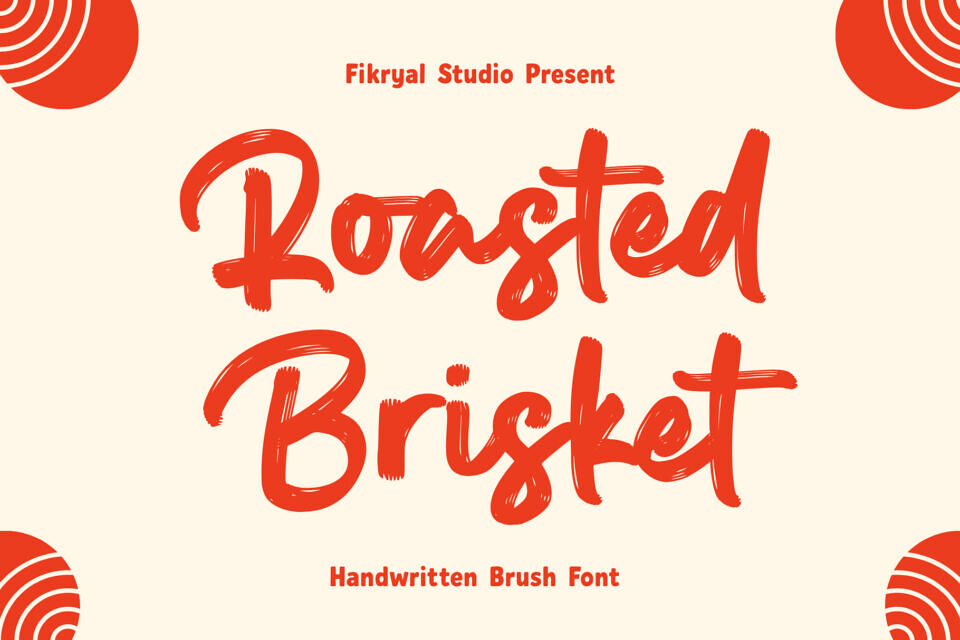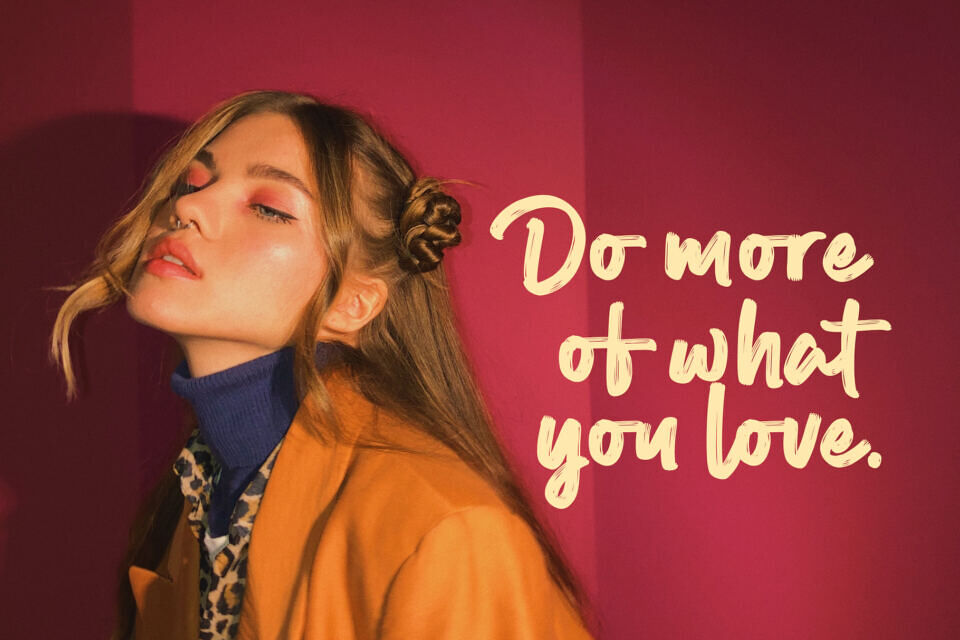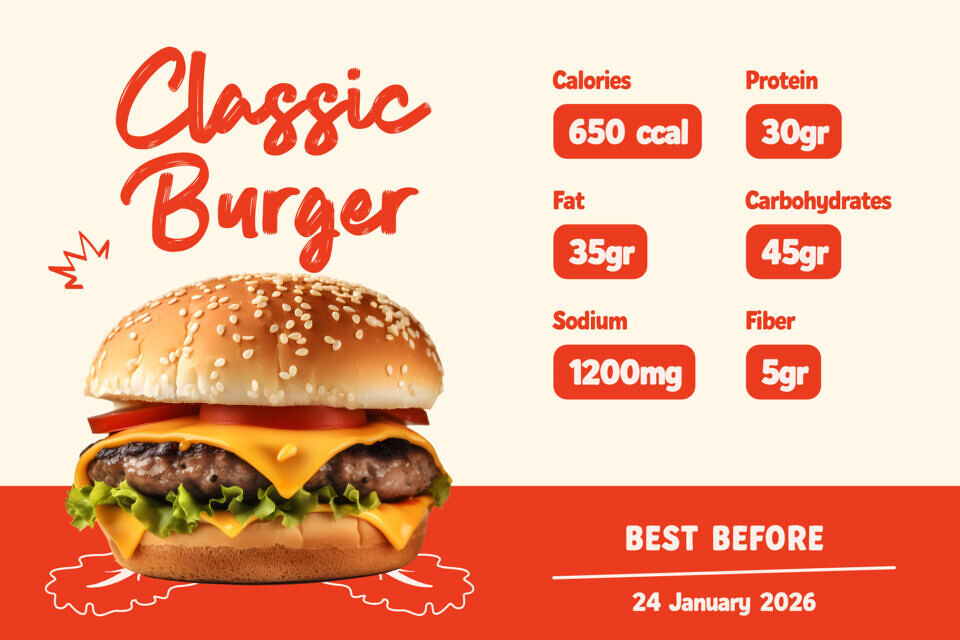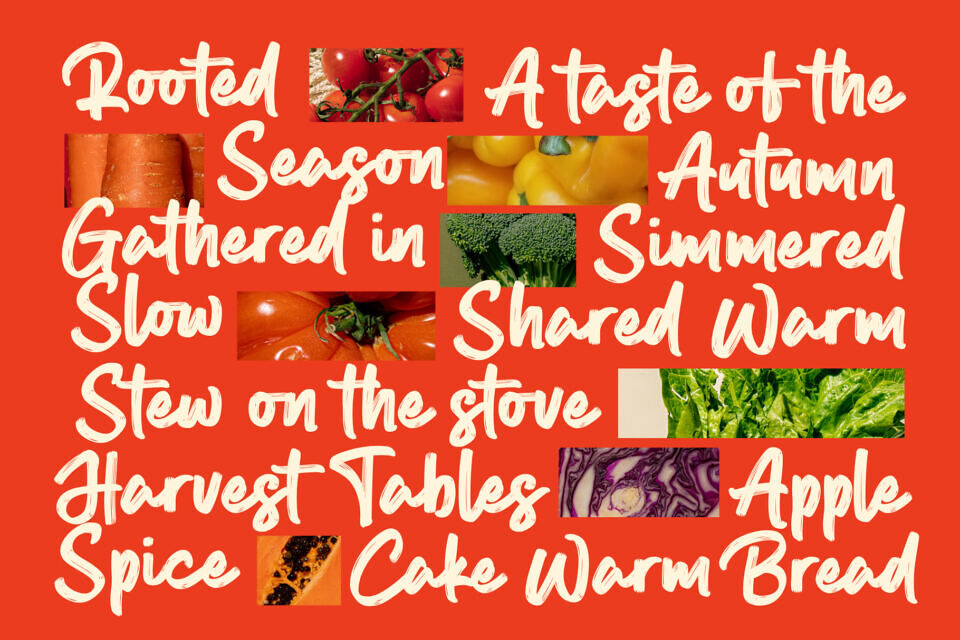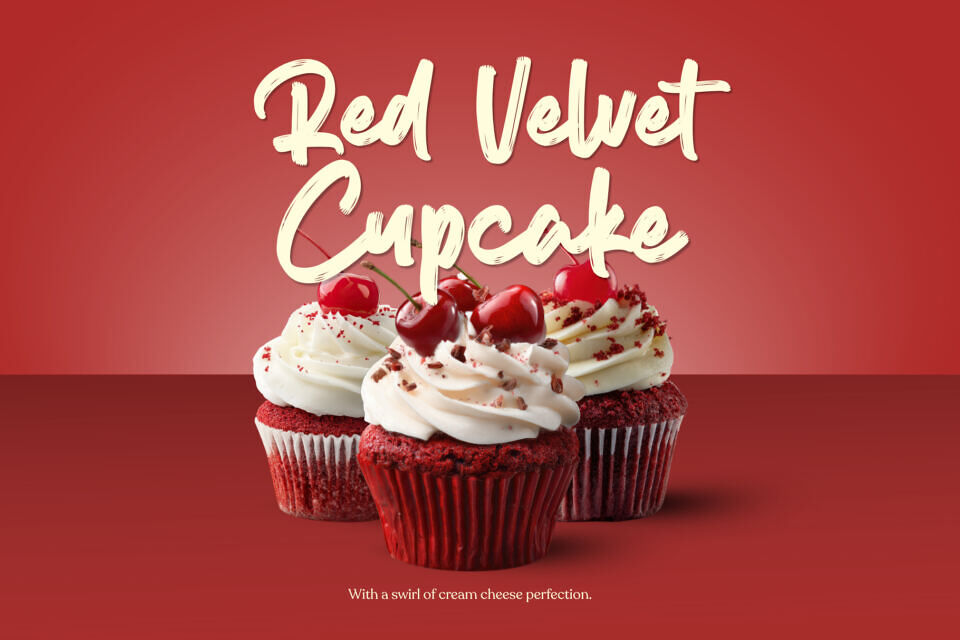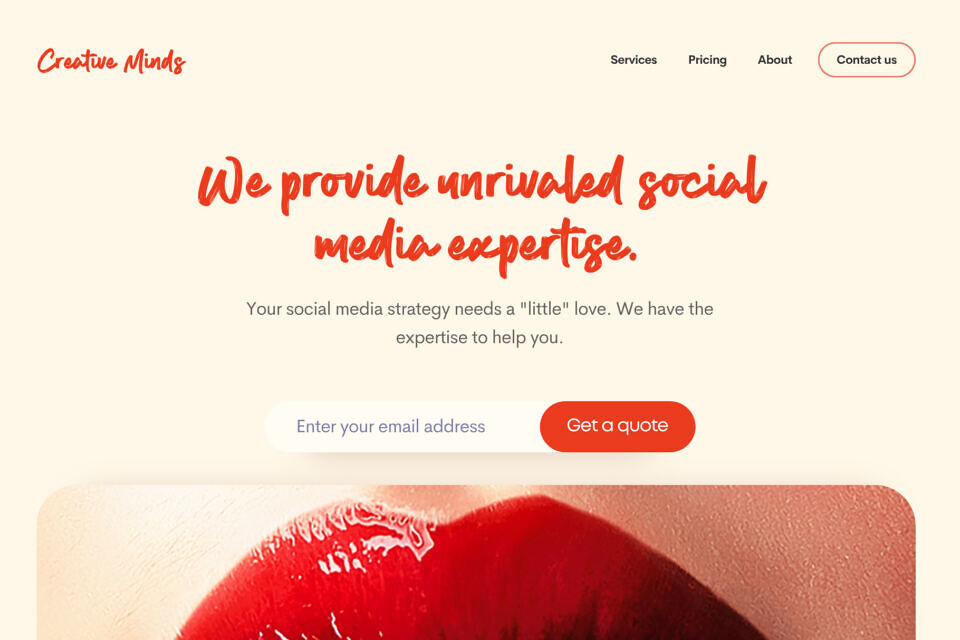
Roasted Brisket Font
Roasted Brisket is a natural handwritten brush font crafted to bring an authentic, energetic, and personal touch to your creative projects. Designed with realistic brush strokes and smooth flowing curves, this script font captures the natural movement of hand lettering, making every design feel warm, expressive, and full of character.
Whether you’re creating branding materials, product packaging, restaurant menus, social media graphics, advertising campaigns, apparel designs, posters, or modern logos, Roasted Brisket delivers a handcrafted aesthetic that instantly attracts attention. This font works beautifully for food branding, BBQ restaurants, street food businesses, craft products, coffee shops, lifestyle brands, signature logos, promotional materials, YouTube thumbnails, and contemporary marketing designs.